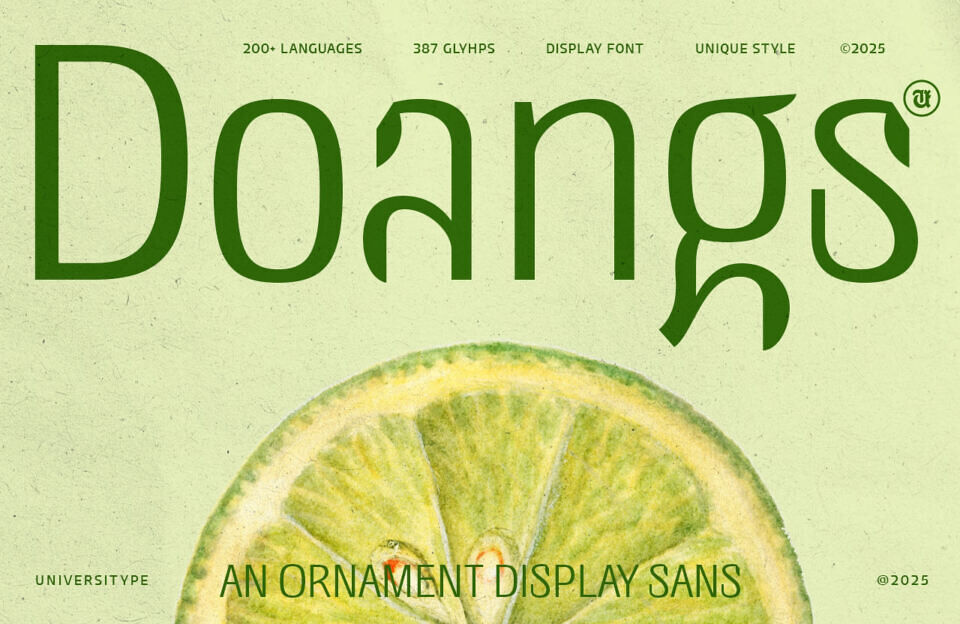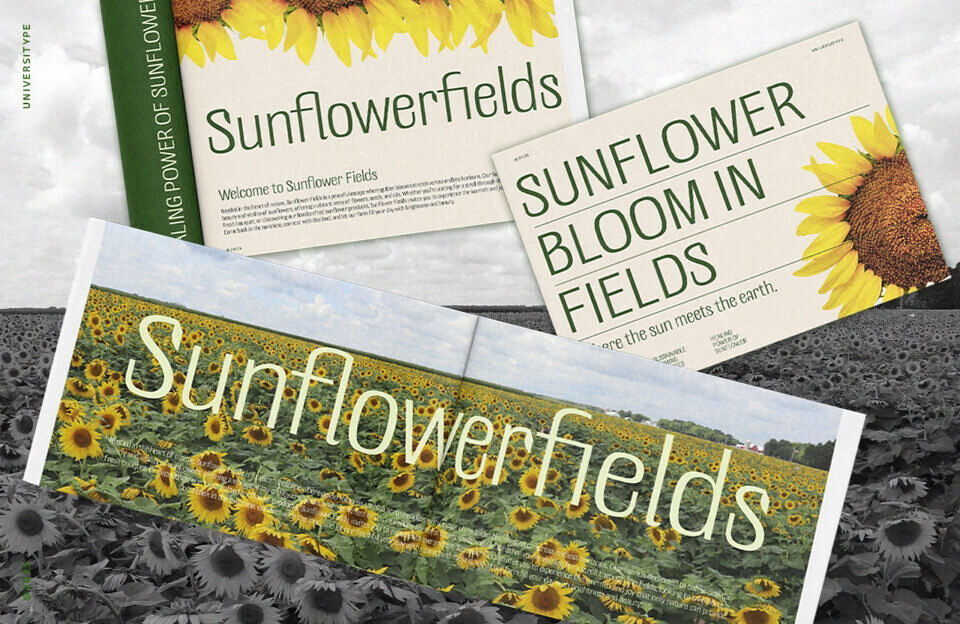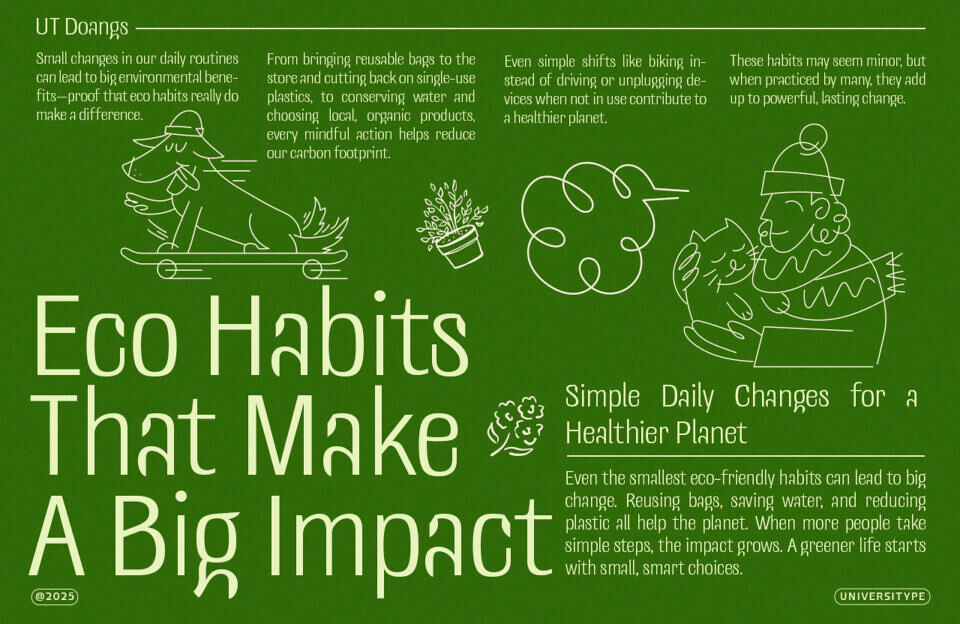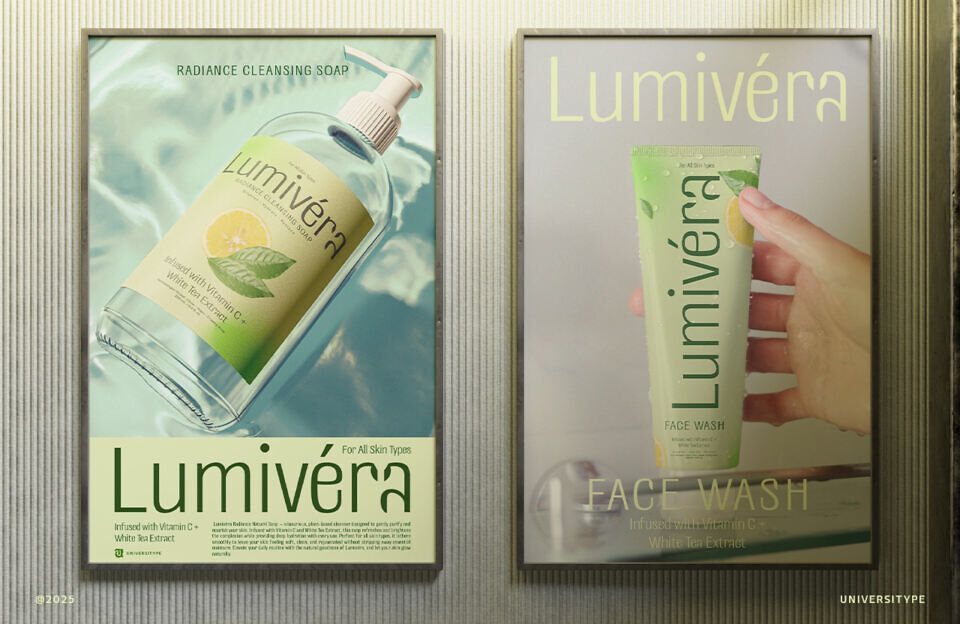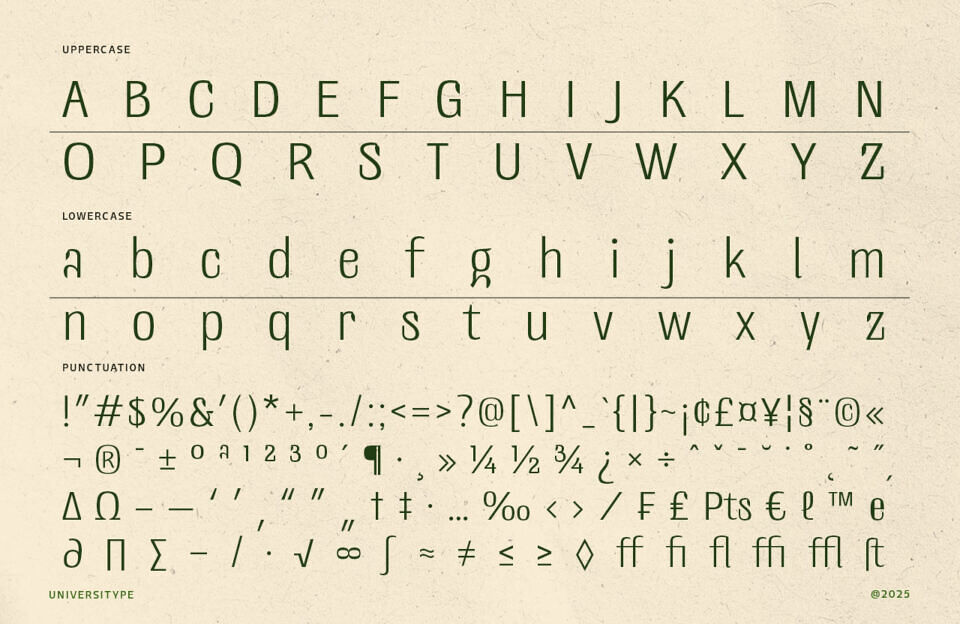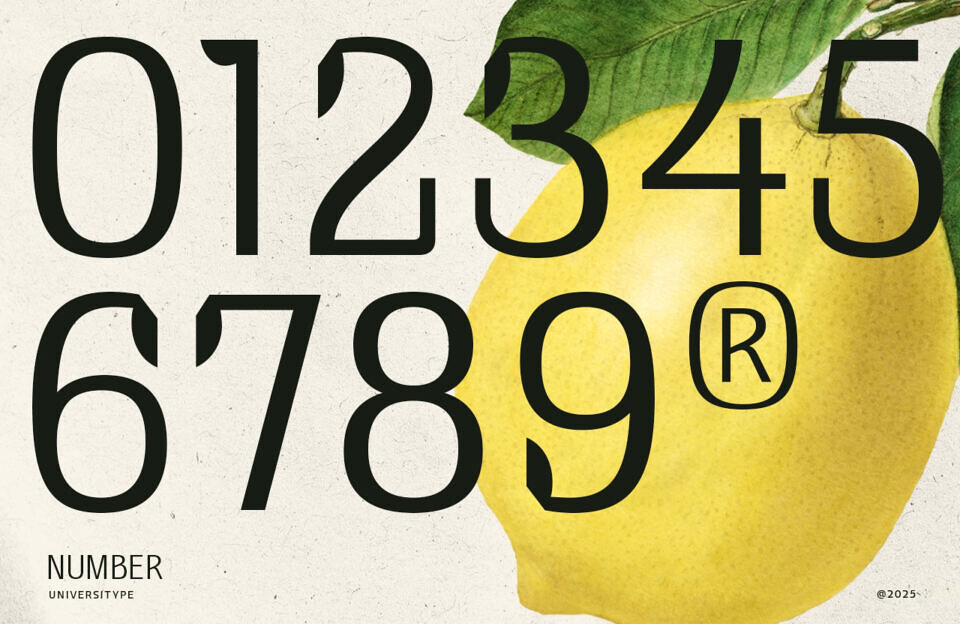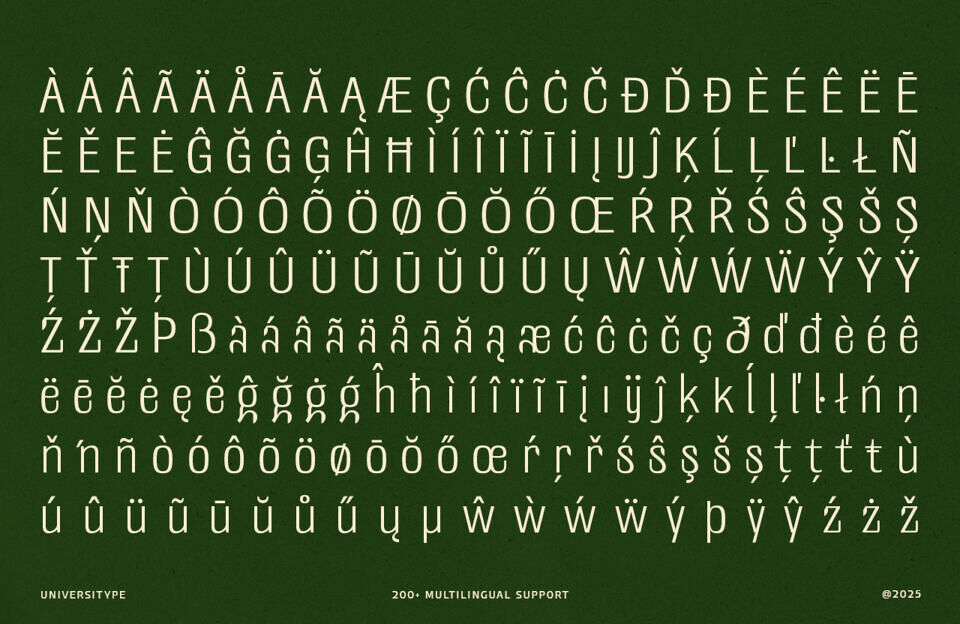
UT Doangs is an expressive display typeface inspired by industrial sculpture. Abstract yet poetic, it translates the soft curves and tension of bent steel into typographic form.
With its flowing asymmetry and handmade feel, UT Doangs is built for creatives who want to make a statement. Perfect for editorial layouts, posters, branding, album covers, and visual identities where art and type collide.